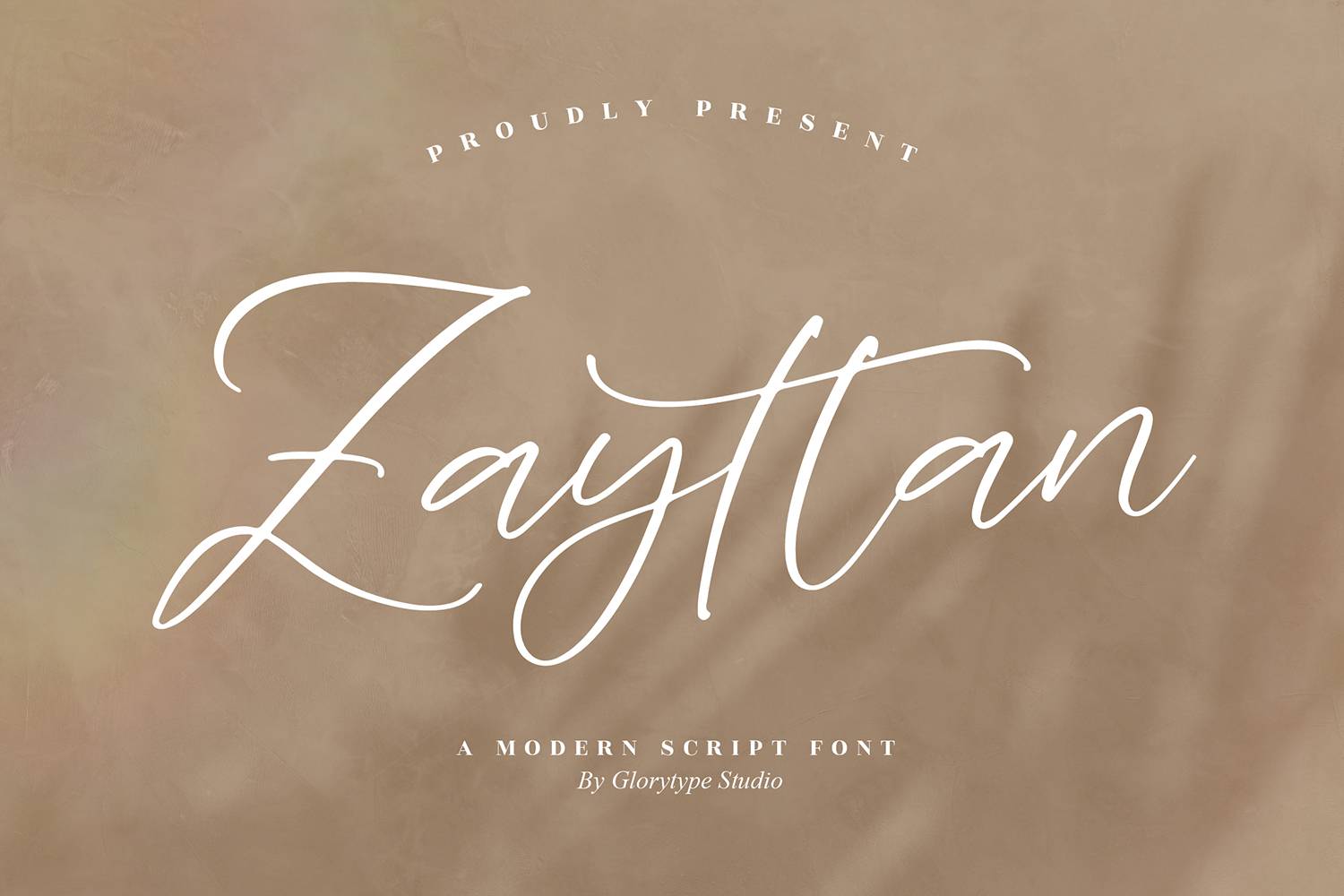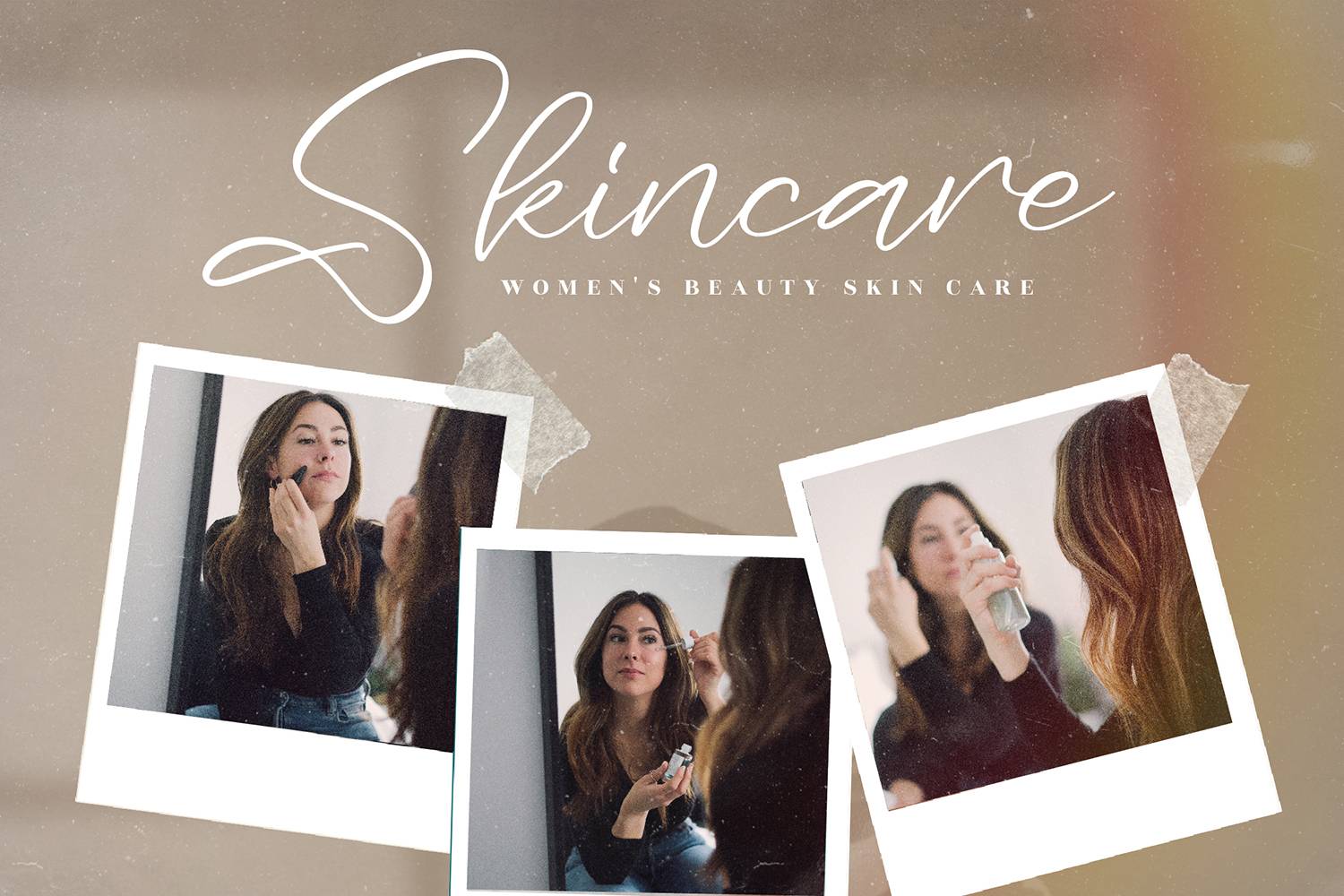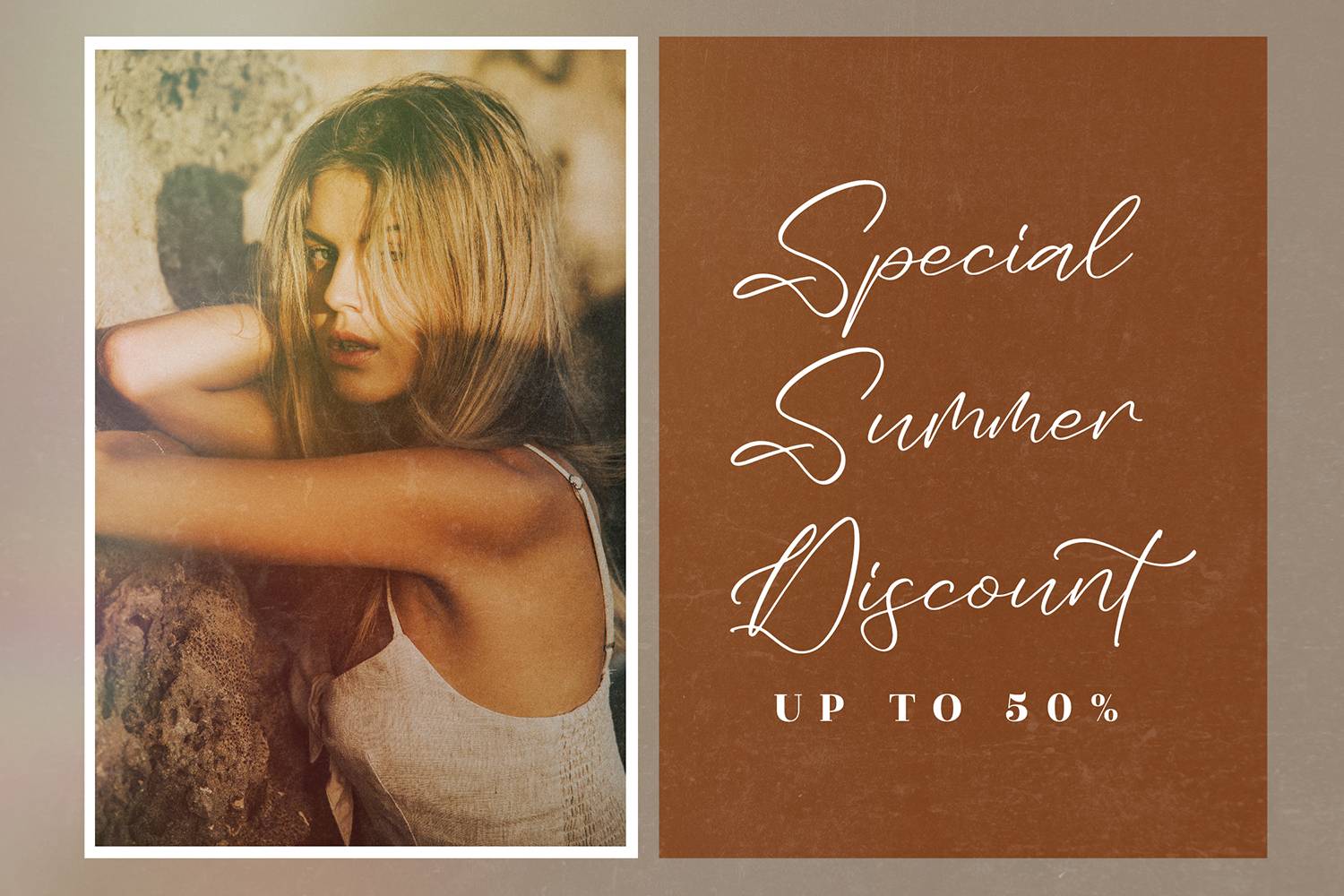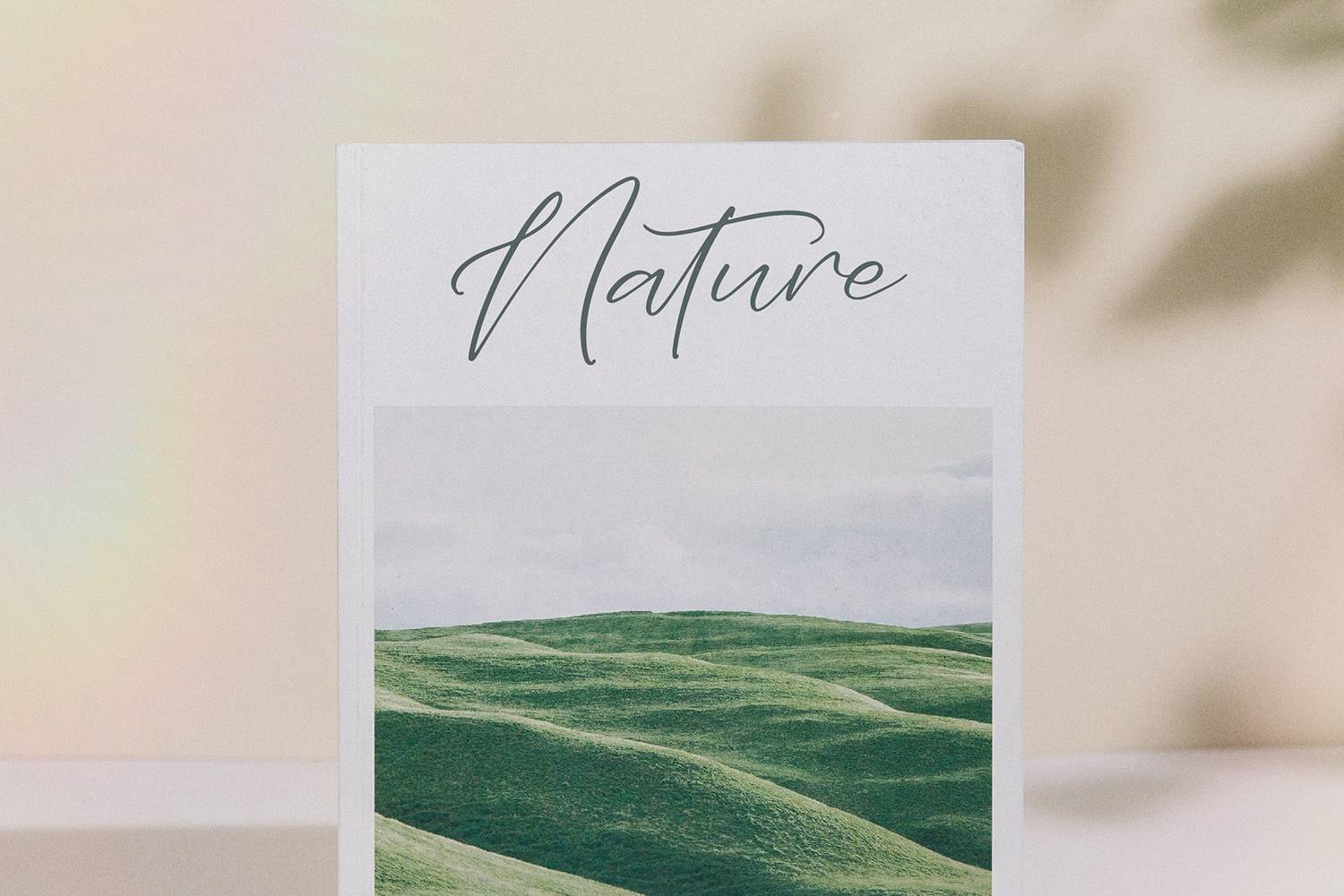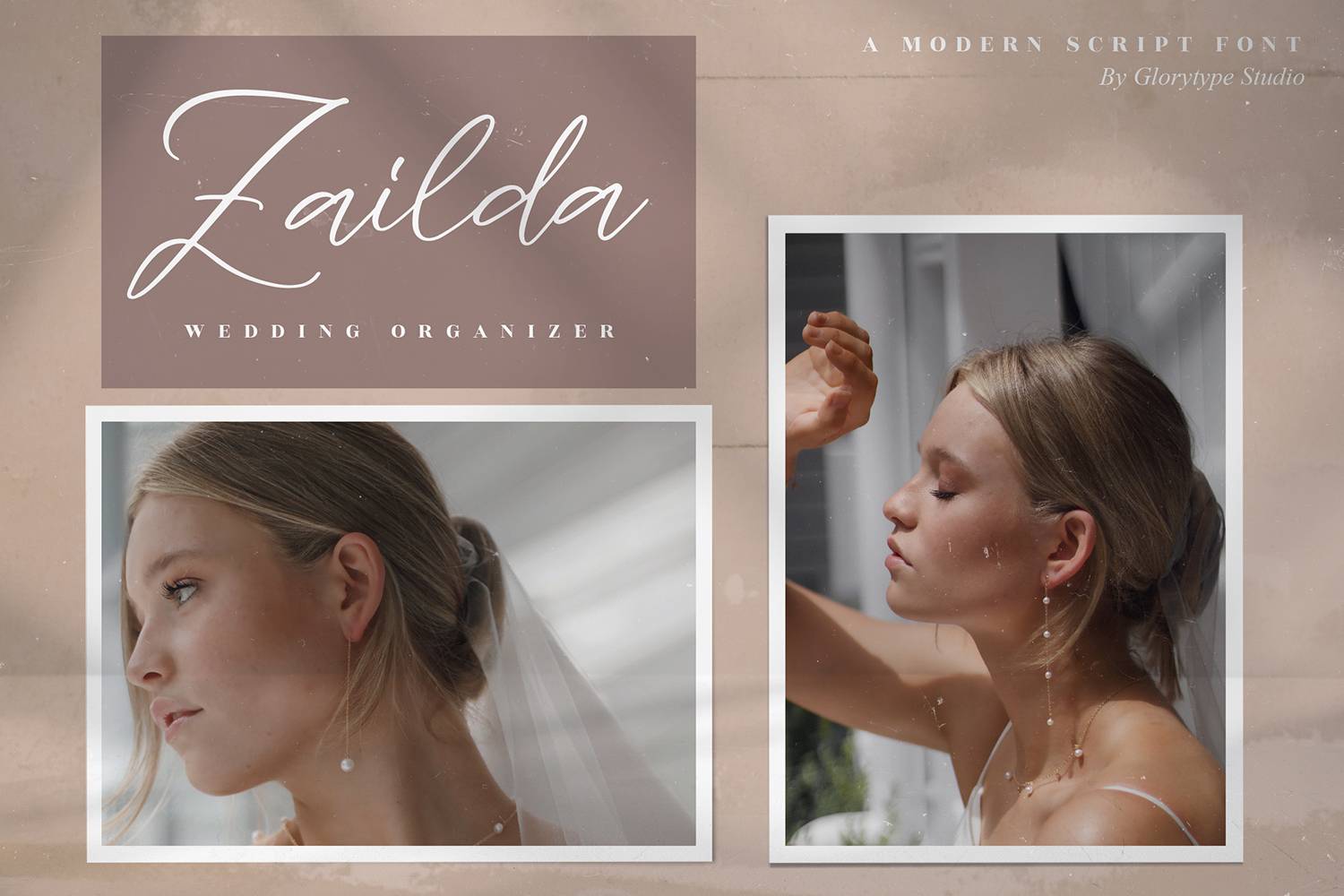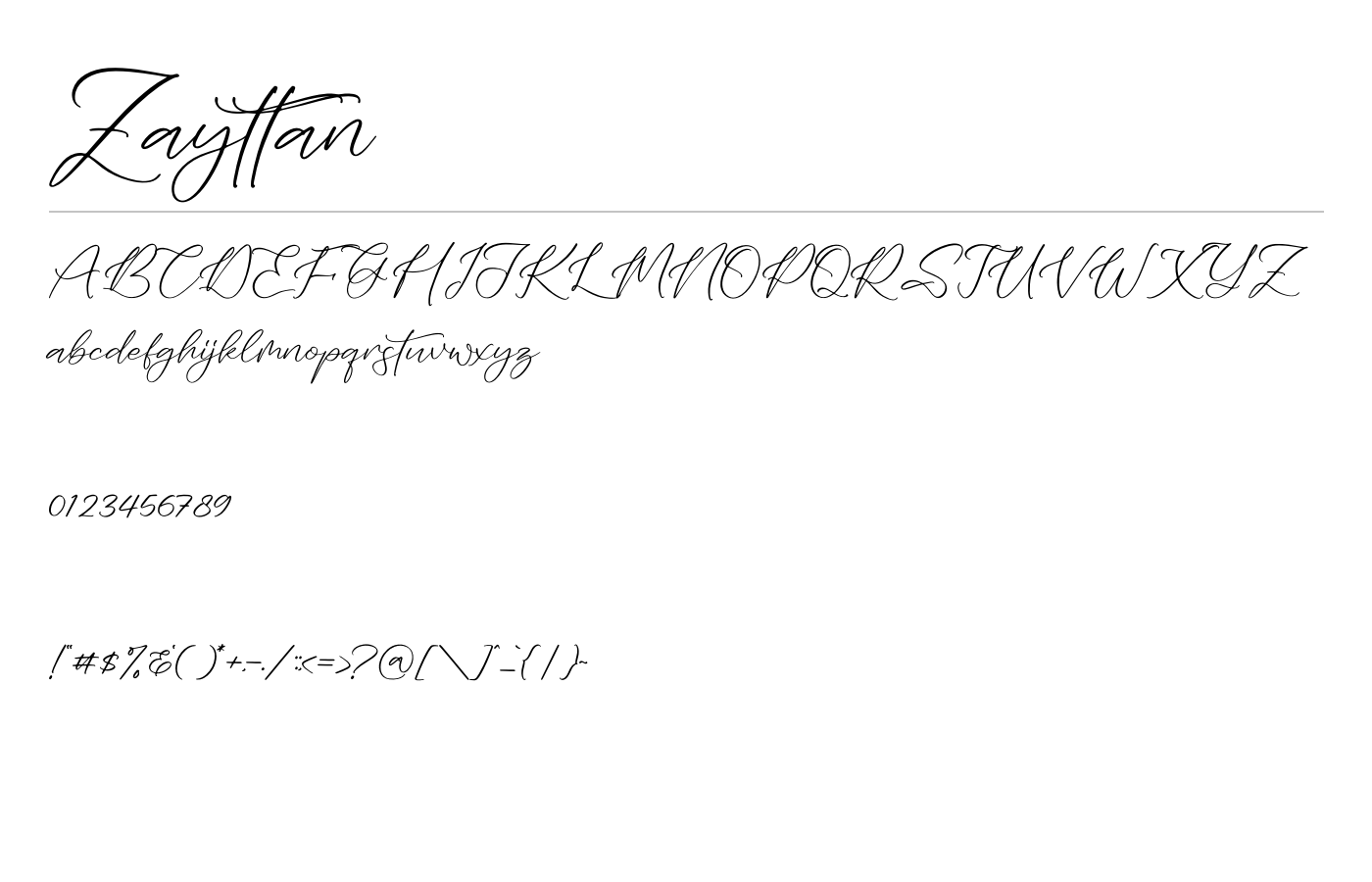
Zayttan is an elegant, delicate script font featuring smooth, flowing lines and a handwritten style that evokes sophistication and grace. Its slender strokes and slightly varied letterforms make it perfect for luxury branding, wedding invitations, and refined editorial projects where a personal, artistic touch is desired. This font works best in display settings or headlines, adding charm and a refined personality without sacrificing readability.
Zayttan Font
About Zayttan Font